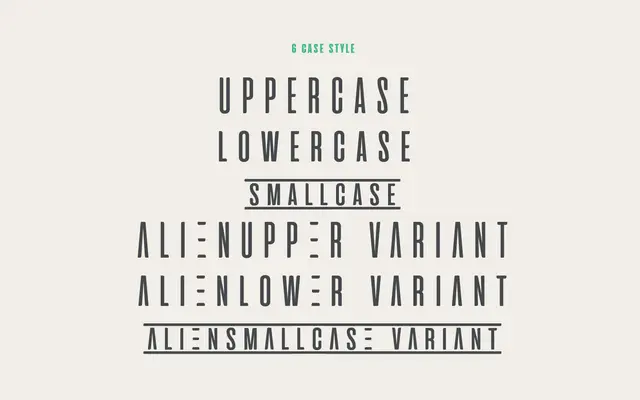
Aliens and Cows
Zetafonts · Francesco Canovaro · 2016
An ultra-condensed sans-serif display typeface by Francesco Canovaro, drawn from 1980s science fiction movie title cards with wide tracking and sci-fi themed alternates.
Seven weights from Thin to Heavy, plus a variable weight axis, give Aliens and Cows a broad tonal range despite its singular ultra-condensed form. Wide letterspacing counterpoints the narrow letterforms, lending it an airy quality suited to minimal logo work and editorial headlines. Sci-fi themed stylistic alternates, lined small caps and word ligatures round out the feature set, with coverage across Latin, Greek and Cyrillic scripts for 198 languages.
An ultra-condensed sans-serif designed explicitly for display use, inspired by 1980s sci-fi movie title cards. Its extreme compression and wide tracking place it firmly in the display category rather than general-purpose sans-serif.